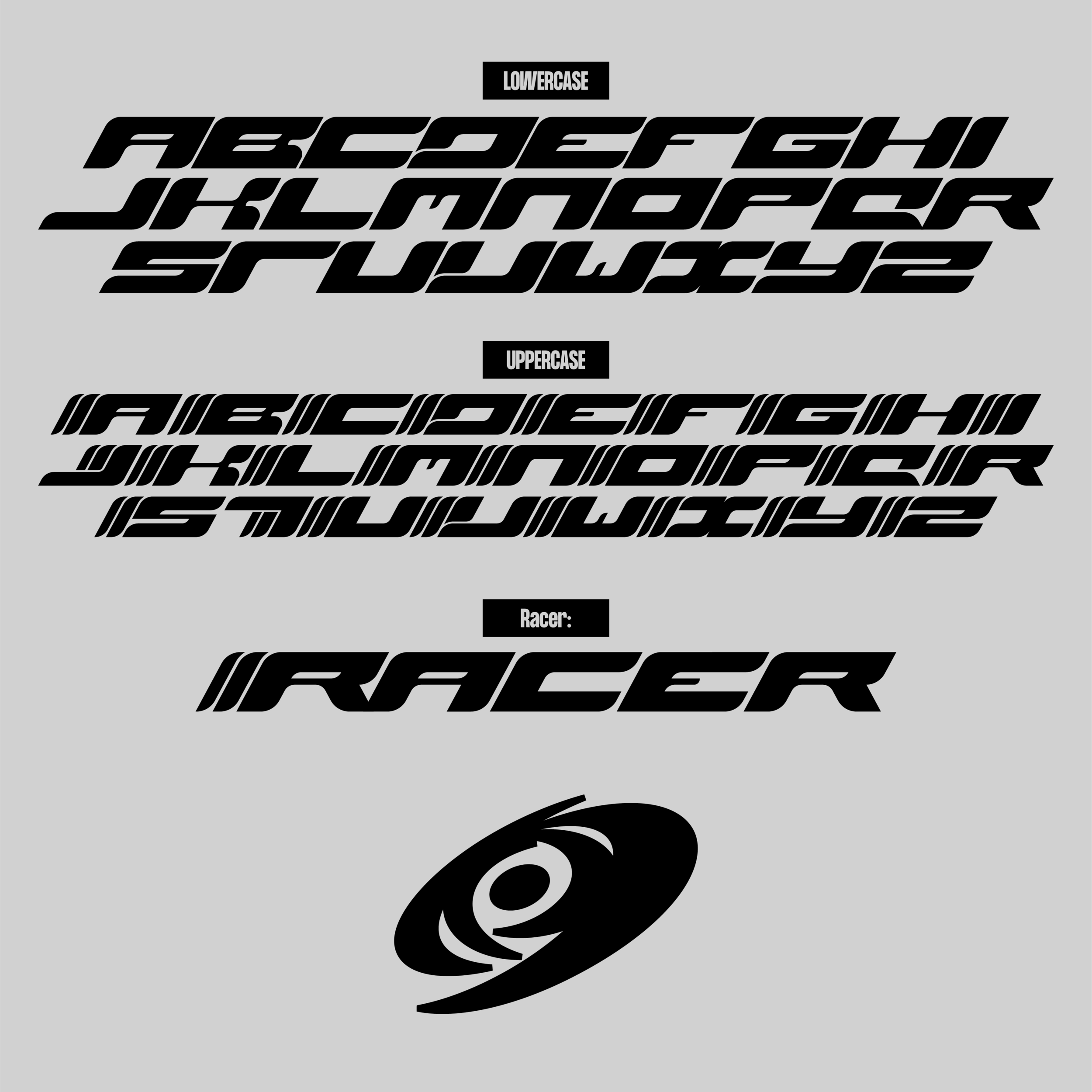
Racer Typeface
Racer typeface inspired by 2000’s racing graphic styles.
Easily create dynamic and fast moving graphics with the ‘racer’ font and included vectors!